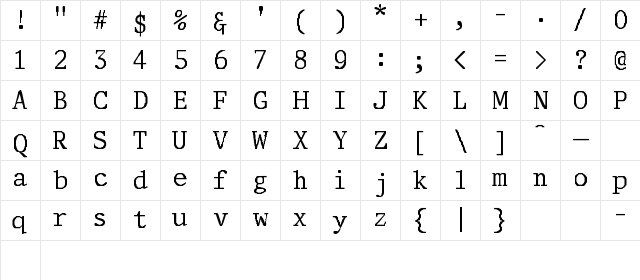
Corporal Regular
Design Context for Corporal Typeface
Corporal is a composed and adaptable typeface that performs quietly and consistently across a wide range of design contexts.